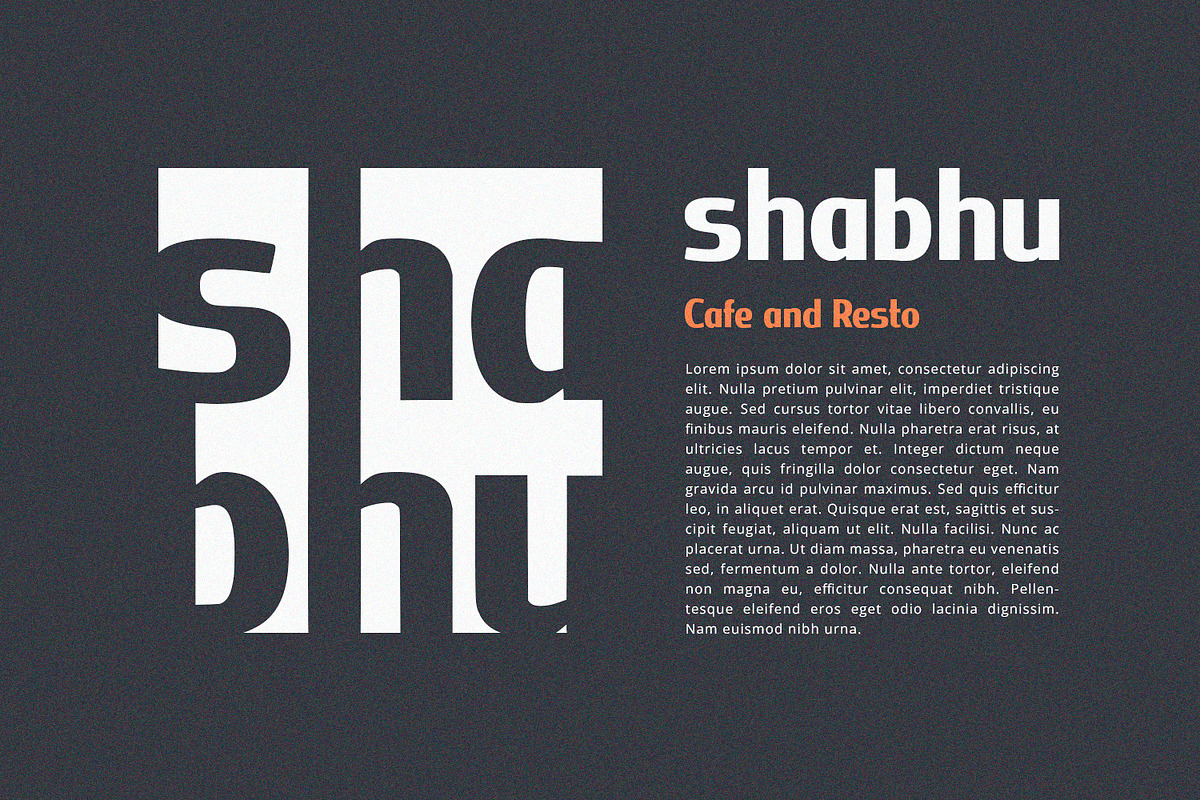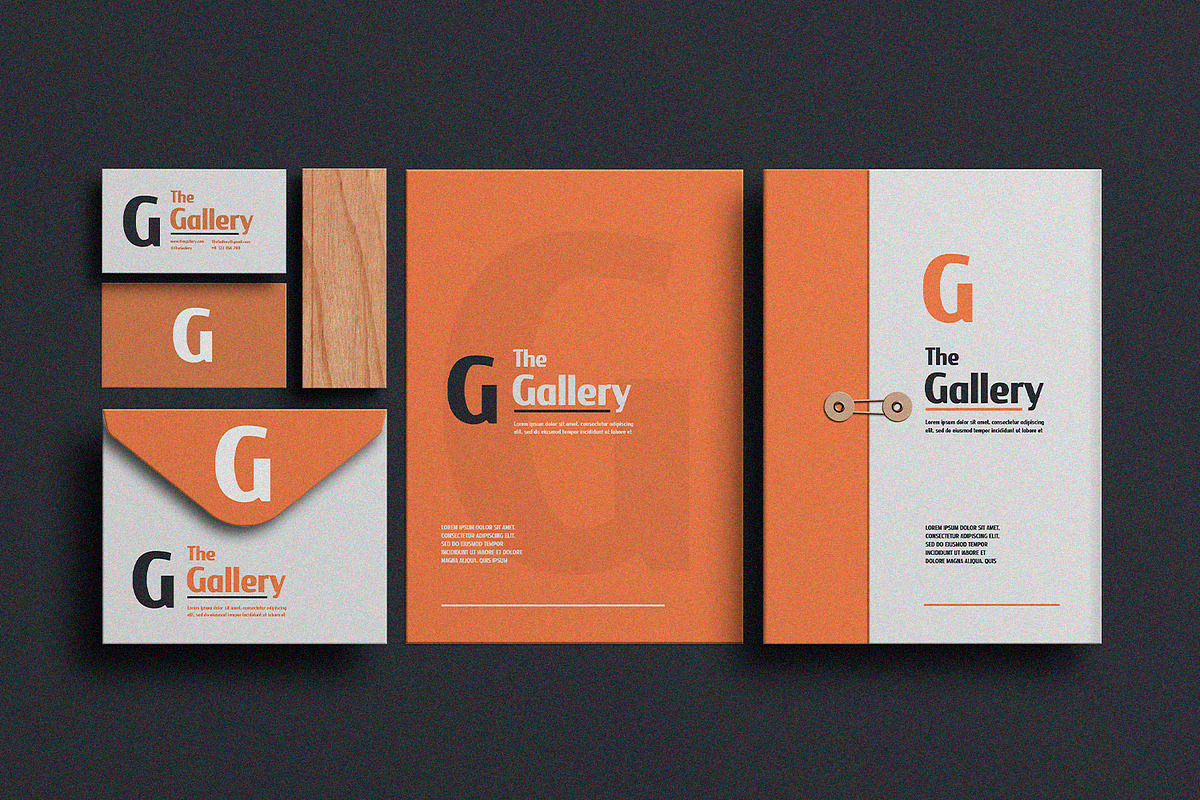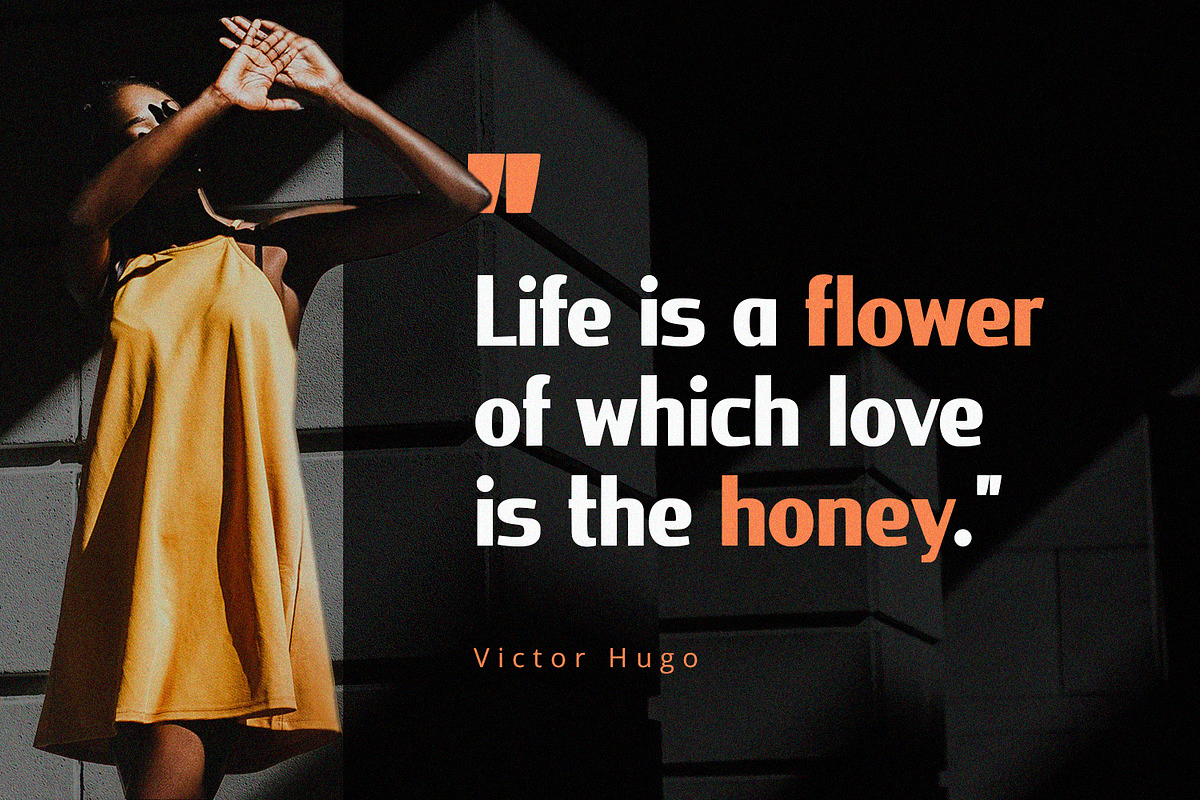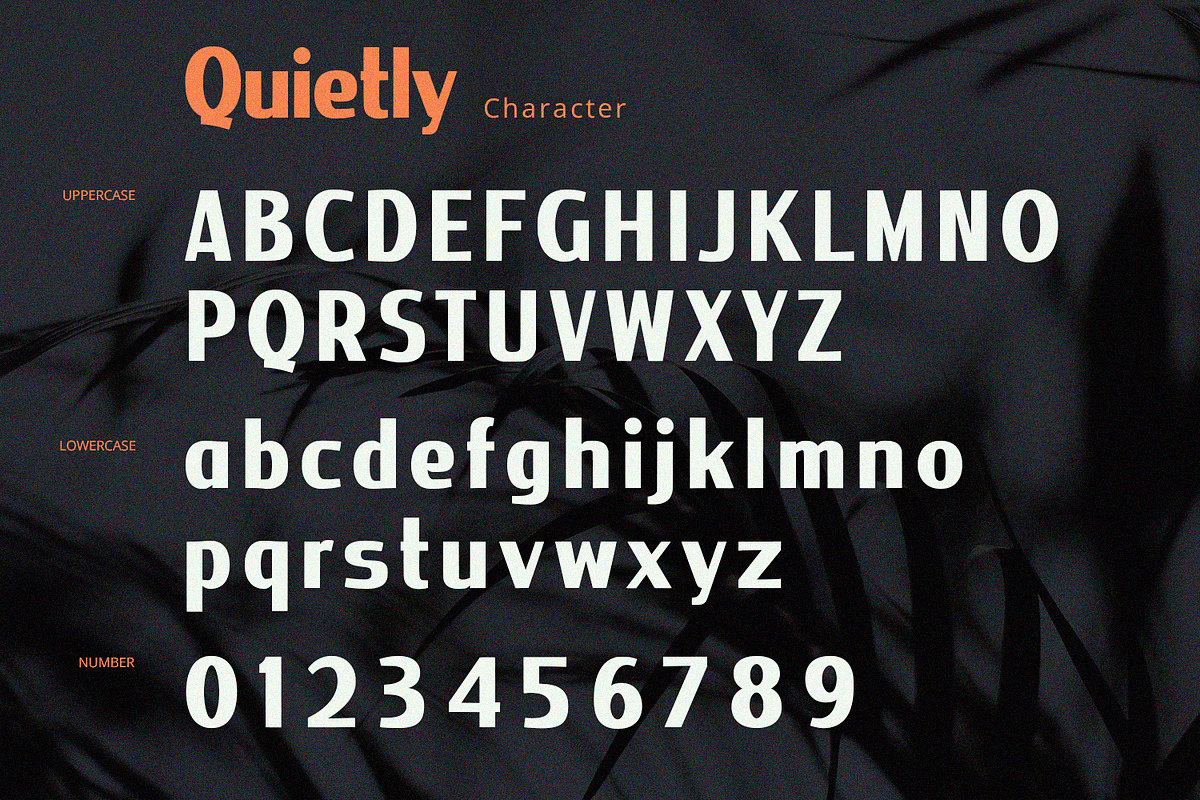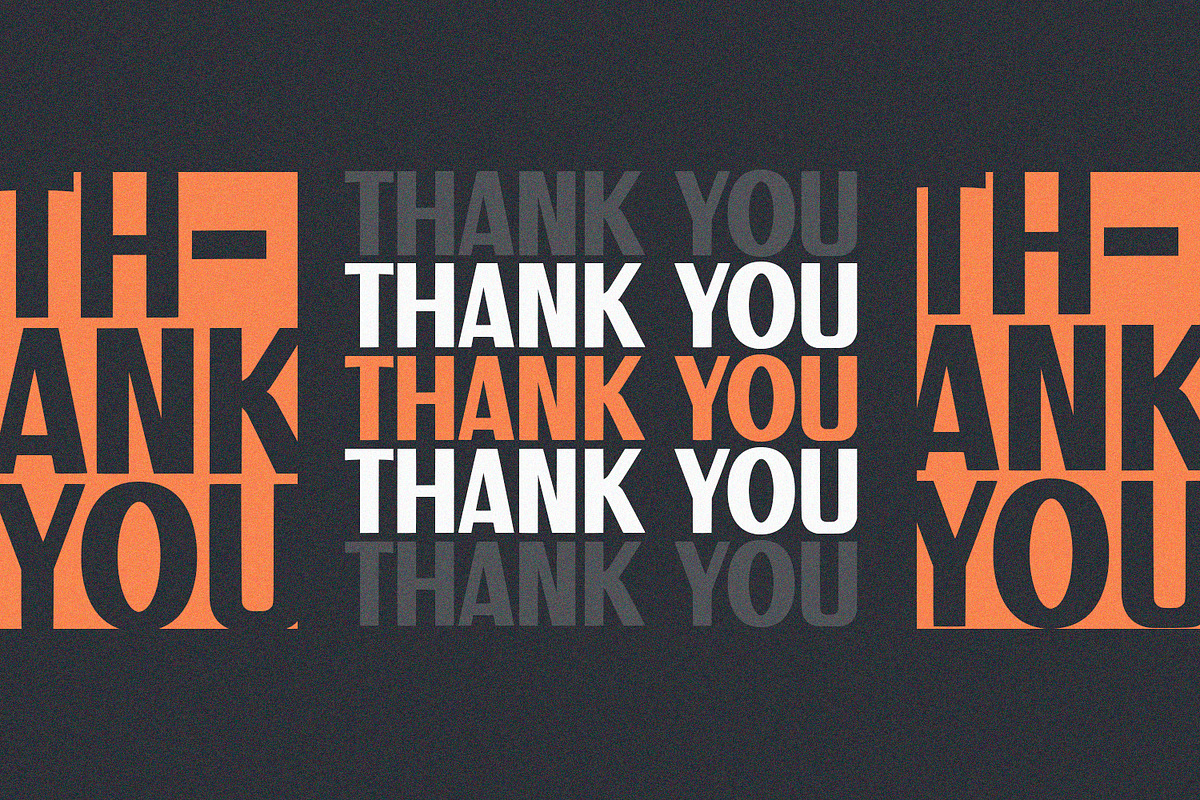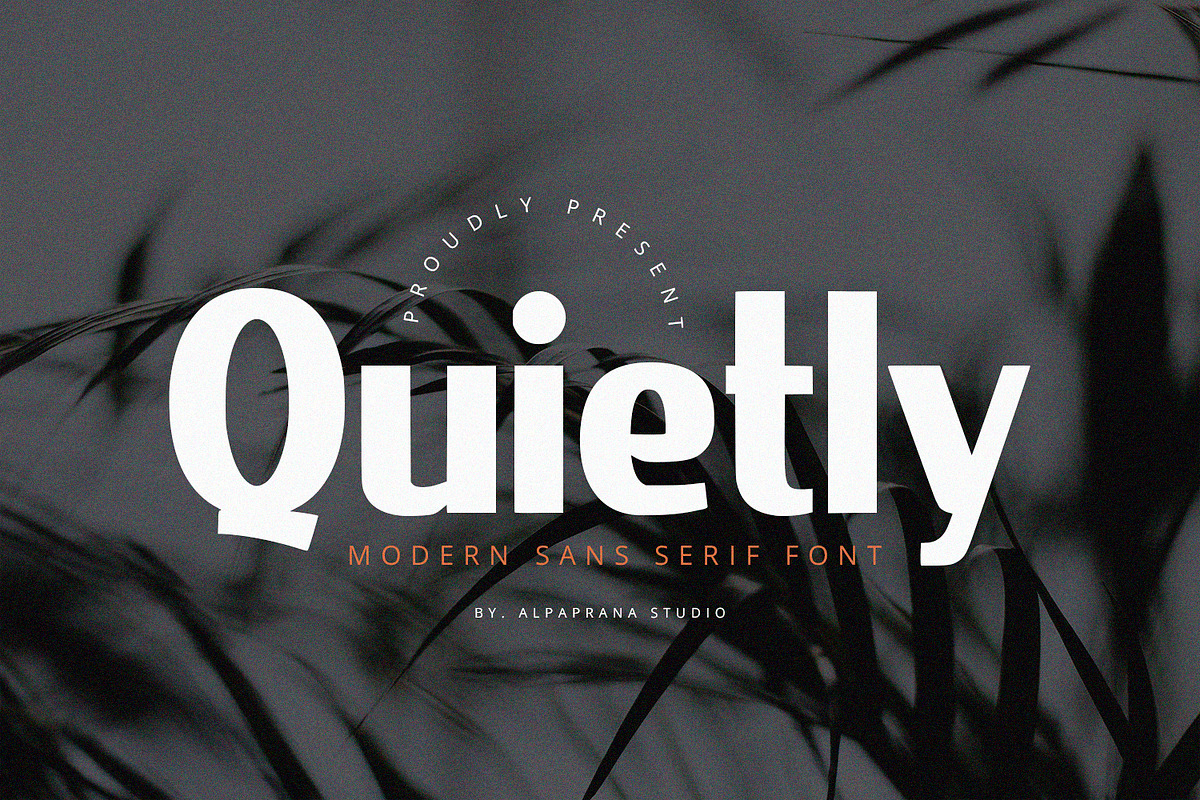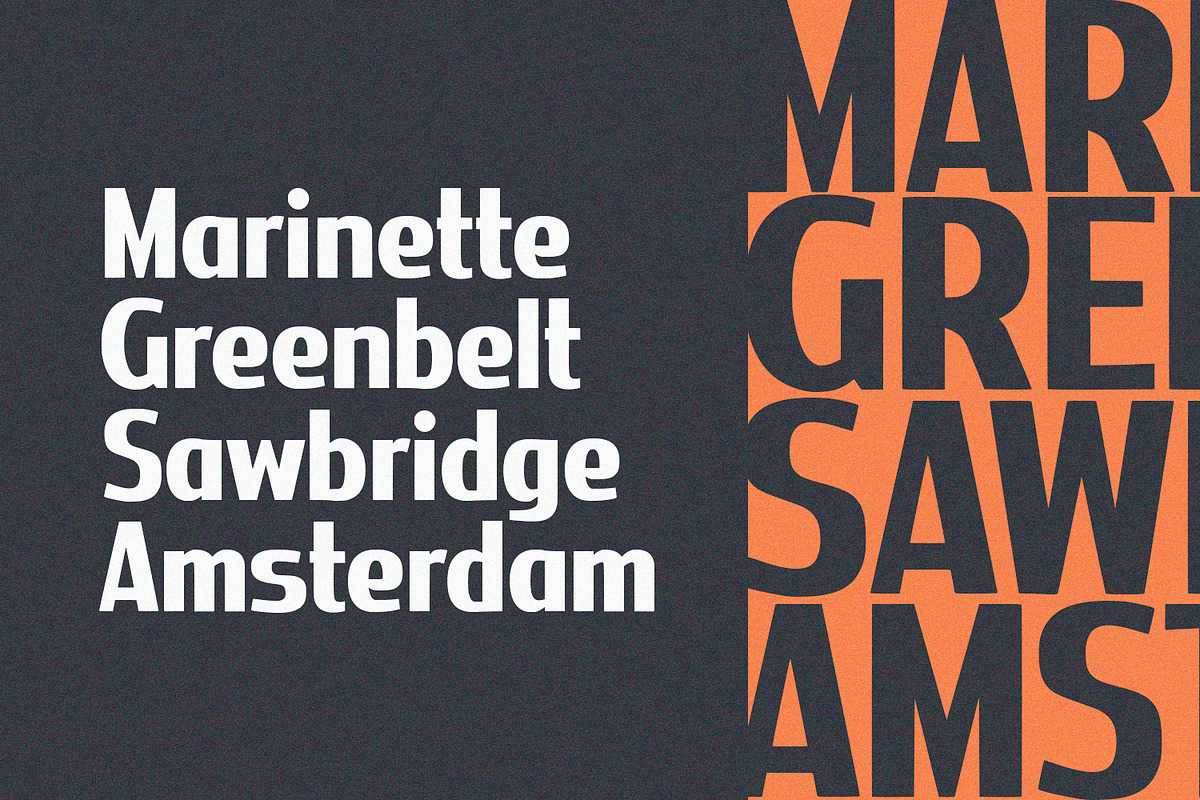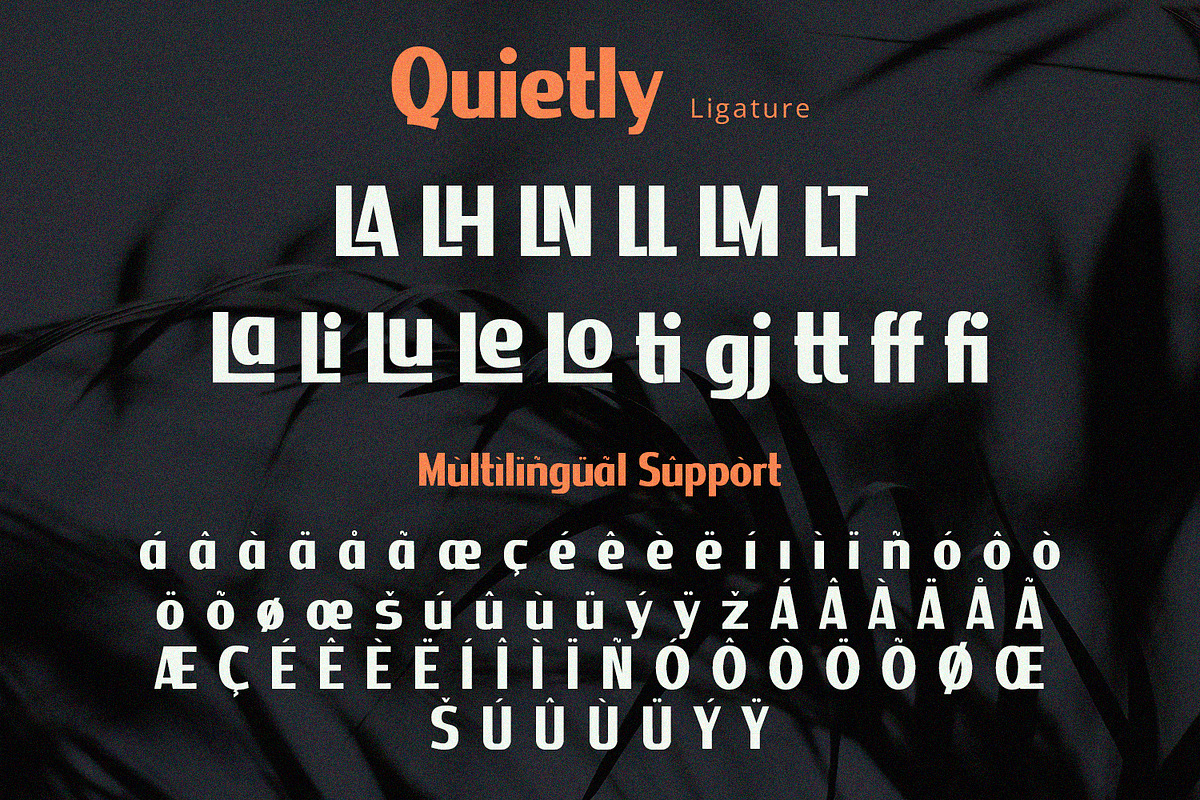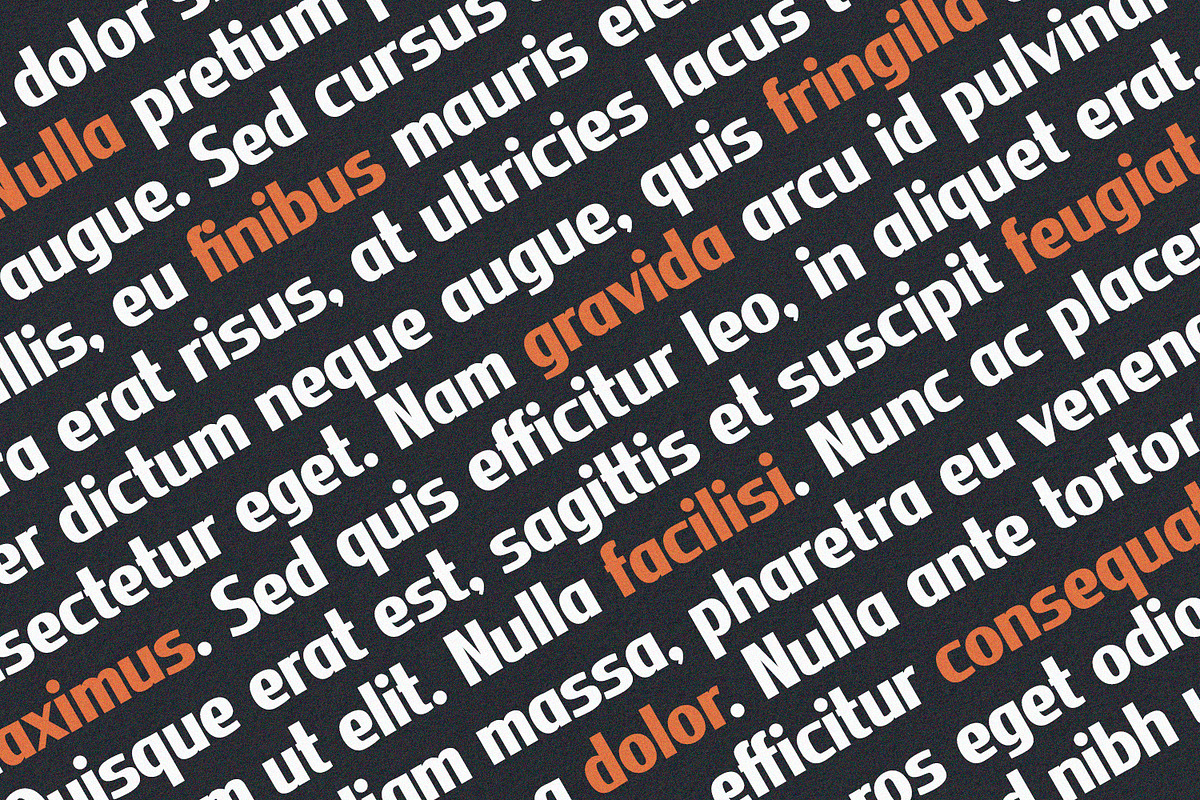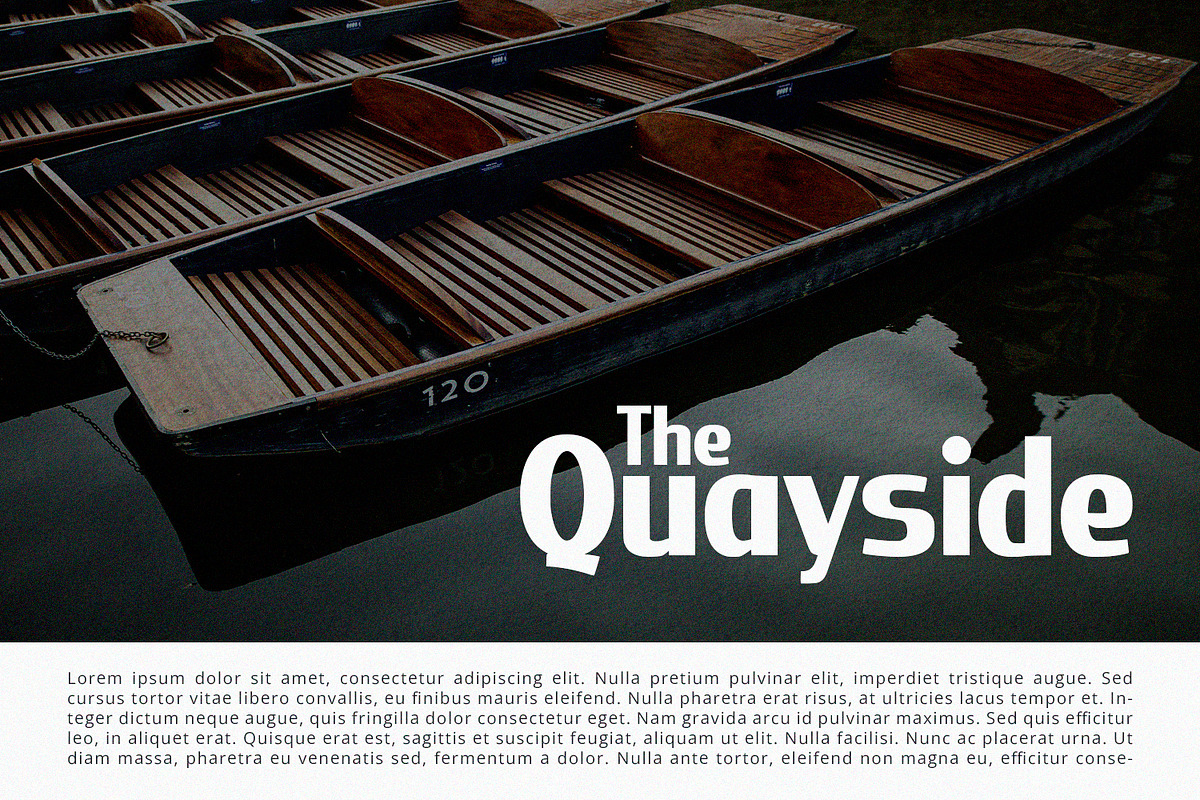
Quietly - Sans Serif Font
Quietly is modern sans serif font with elegant and modern feels. It will be perfectly used for Branding, Logo Design, Lettering, Logotype, Clothing, Poster, magazine, packaging, posters, shopping bags, t-shirts, book covers, photography, special events and other design project.